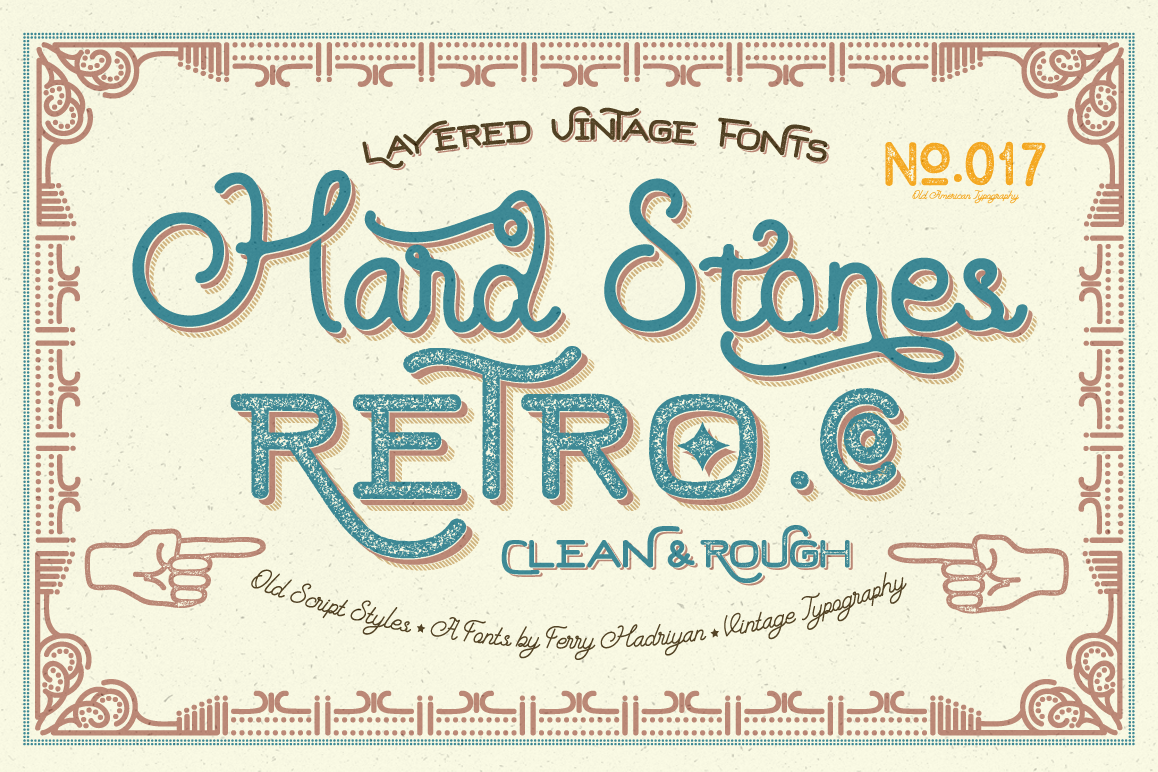
Hard Stones Family
Hard Stones Pro Rough
Hard Stones Script
Hard Stones Sans
Hard Stones Sans Strip
Hard Stones Sans Strip Shadow
Hard Stones Sans Rough
Hard Stones Pro
Hard Stones Pro Strip
Hard Stones Pro Strip Shadow
Hard Stones Family
Hard Stones include sans, display, and script, retro combination with layered font, clean and rough vintage authentic style, Suitable for design, element design, event, t-shirt, logo, badges, sticker, and awesome work, etc...
- Combination alternative ligature fonts
- Standard Ligatures, Stylistic Set, Multilanguage Characters, etc
- Multilanguage Support
- Layered Typeface
- Unique style fonts Clean And Rough